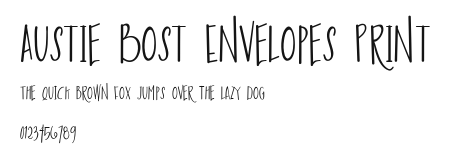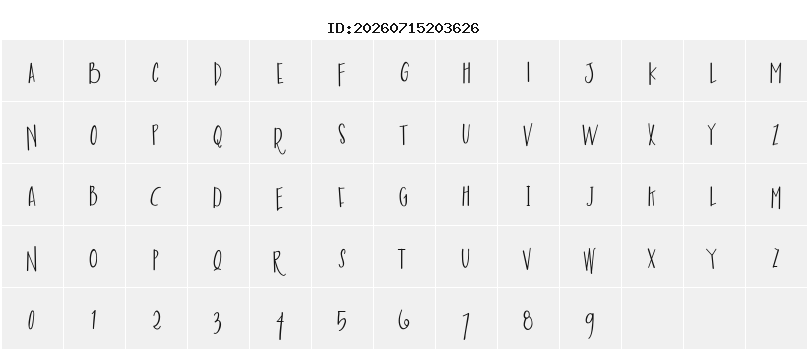
Austie Bost Envelopes Print Preview
• Font Name: Austie Bost Envelopes Print
• Designer: Austin Owens
• Manufacturer: Austie Bost Fonts
About Austie Bost Envelopes Print.ttf
Austie Bost Envelopes Print.ttf is a modern, elegant sans-serif font designed for ultimate readability and visual harmony. Perfect for branding, headlines, web design, and print materials.